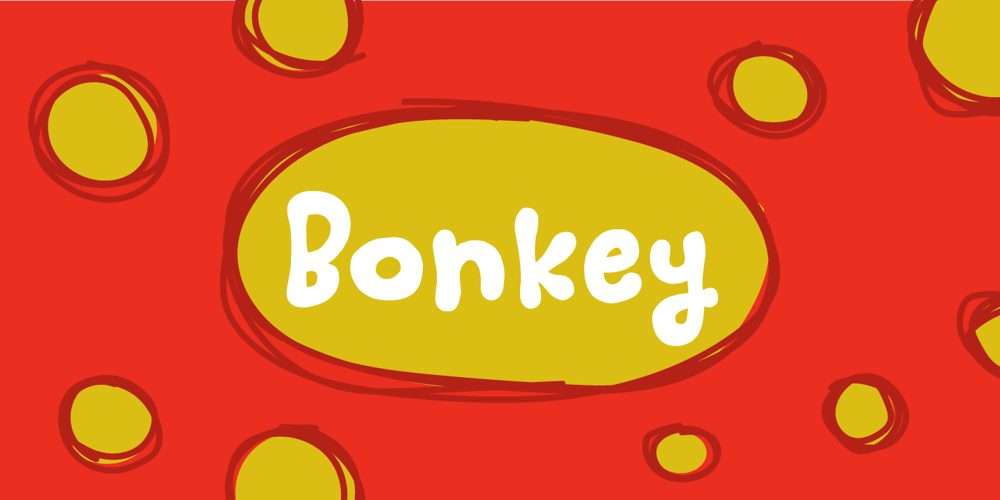
Bonkey Font Family was designed by Jakob Fischer and published by PizzaDude.dk. Bonkey contains 2 styles and family package options. Drawn with a loose hand and keeping the eye off what’s considered right (regarding typefaces) Bonkey saw the light of day on a napkin during dinner, and was scanned, cleaned up (just a bit)It’s an unpredictable font that just wants to have some fun!